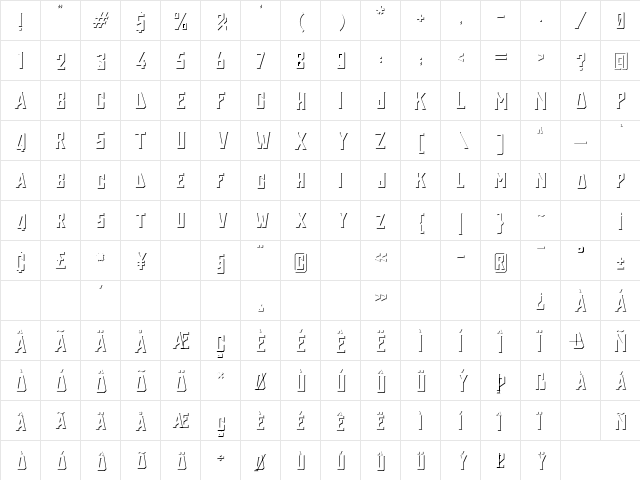
Holyriver Shadow Regular
Design Context for Holyriver Shadow Typeface
Holyriver Shadow is built around its visual character rather than neutral utility — its distinctive forms are designed to make an impression at display sizes.
Font Pairing: Pair with a clean neutral sans-serif for body copy to let Holyriver Shadow's character lead without overwhelming the composition.
Pro Tip: Use Holyriver Shadow exclusively at display sizes — it was designed to be seen, not read at length. Let a neutral companion handle body copy.